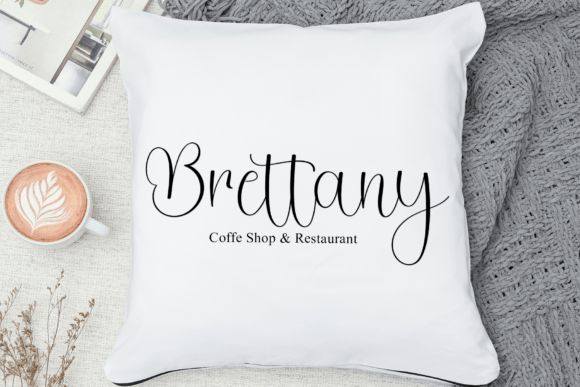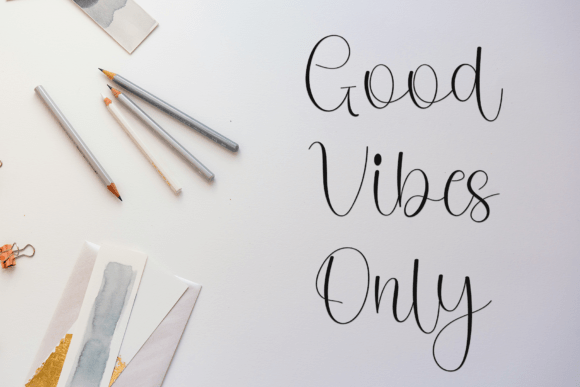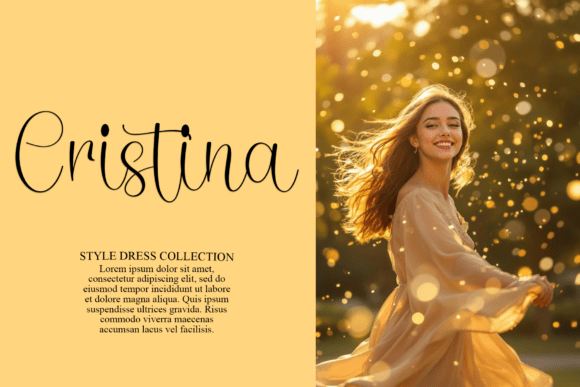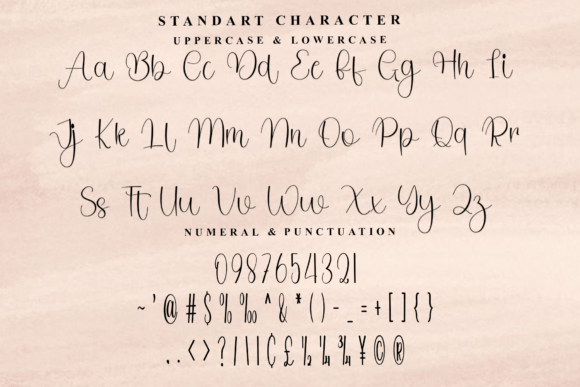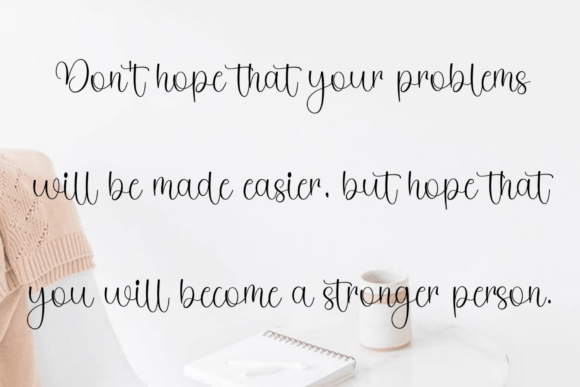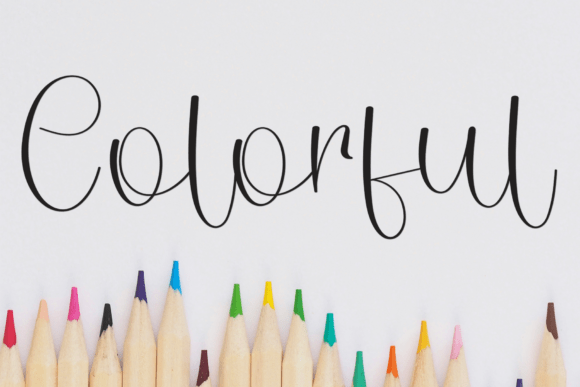
Unwrapping the Magic of Holiday Christian Font
As a designer, there’s nothing quite like the rush of finding the perfect font to bring your creative vision to life. It’s that moment when everything falls into place, and your design transforms from good to great. For many of us, that moment of inspiration comes from discovering unique and beautiful fonts like the Holiday Christian Font.
This stunning font is more than just a pretty face – it’s a versatile tool designed to add a special touch to your designs. With its soft, natural strokes and distinctive character, the Holiday Christian Font is perfect for a wide range of projects, from crafts and design work to artistic expressions.
Whether you’re a seasoned designer or just starting out, the Holiday Christian Font is an invaluable addition to your toolkit. Its compatibility with various applications and open-source platforms makes it a valuable asset for creatives across different fields.
Holiday Christian Font Key Features
- Font Family: Holiday Christian Font is a calligraphy-style font, designed to resemble handwritten text with a festive and elegant feel.
- Unique Characteristics: Features a distinctive, flowing script with intricate details and ornaments, making it ideal for holiday-themed designs, invitations, and cards.
- Font Styles: Available in regular, bold, and italic styles, allowing for flexibility in design and layout.
Design Review: Holiday Christian Font
The Holiday Christian Font has a unique, hand-drawn aesthetic that is sure to add a personal touch to any design project ✨. The font’s eclectic style and playful flourishes make it perfect for creating a festive atmosphere, especially during the holiday season.
Here are some of the font’s notable features:
- Beautiful, hand-drawn style with intricate details
- Wide range of characters, including punctuation and symbols
- Supports multiple languages, including English and Spanish
However, there are a few limitations to consider ⚠️:
- Limited font sizes: the font may not be suitable for large-scale typography or headings
- May not be suitable for formal or professional designs
- Some characters may not render correctly in certain software or environments
Overall, I think the Holiday Christian Font is a charming and versatile font that is perfect for creating a unique and festive atmosphere. While it may have some limitations, its unique style and features make it a great choice for designers looking to add a personal touch to their projects.
The Holiday Christian Font is ideal for creating festive and inspirational designs for holiday cards, invitations, and social media posts. You can also use it for creating sermon notes, Bible studies, and other Christian-themed materials.
Some tips for getting the most out of the Holiday Christian Font include:
- Combine the font with other festive elements, such as holly leaves or snowflakes.
- Use the font in conjunction with other Christian-themed fonts to create a cohesive look.
Alternatives to Holiday Christian Font
Carolyna Pro is a beautiful, elegant script font suitable for wedding invitations, greeting cards, and other special occasions. It’s a great choice when you need a sophisticated, high-end look.
Comparison to Holiday Christian Font: Carolyna Pro is more refined and has a more luxurious feel, while Holiday Christian Font is more playful and rustic. Use Carolyna Pro when you want to convey a sense of sophistication and elegance.
Great Vibes is a modern, cursive font that’s perfect for creating a fun and lively atmosphere. It’s ideal for use in social media graphics, advertising, and other promotional materials.
Comparison to Holiday Christian Font: Great Vibes is more dynamic and energetic, while Holiday Christian Font is more traditional and nostalgic. Use Great Vibes when you want to convey a sense of excitement and playfulness.